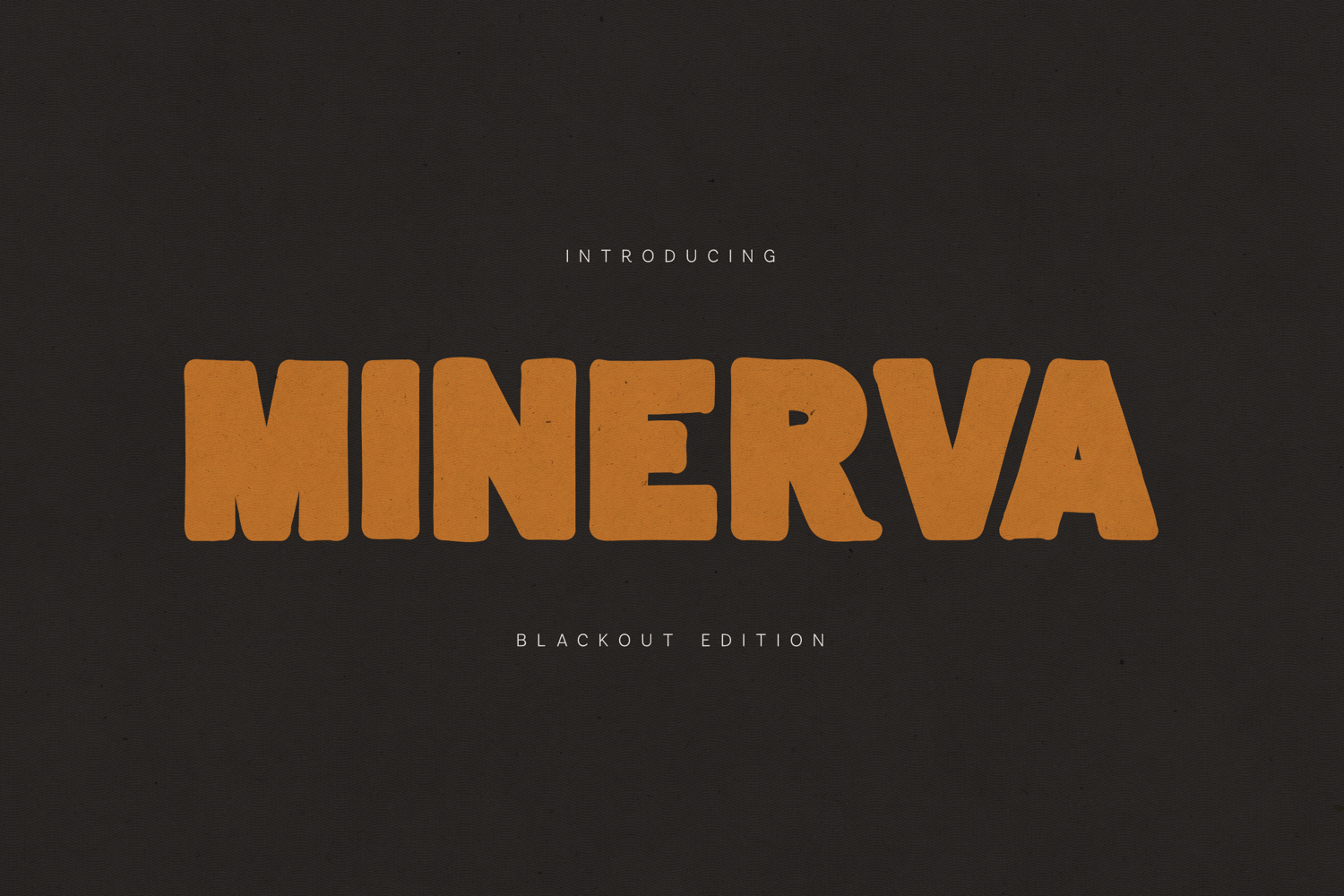
Minerva Blackout is a bold, rounded display font inspired by vintage signage, 70s posters, and warm nostalgic branding.
With its chunky shapes, soft curves, and confident presence, Minerva is designed to make headlines loud, friendly, and unforgettable.
This version delivers a strong blackout aesthetic — perfect for impactful typography, branding, packaging, posters, and editorial statements.
Minerva is built for designers who want softness with strength — playful yet powerful.